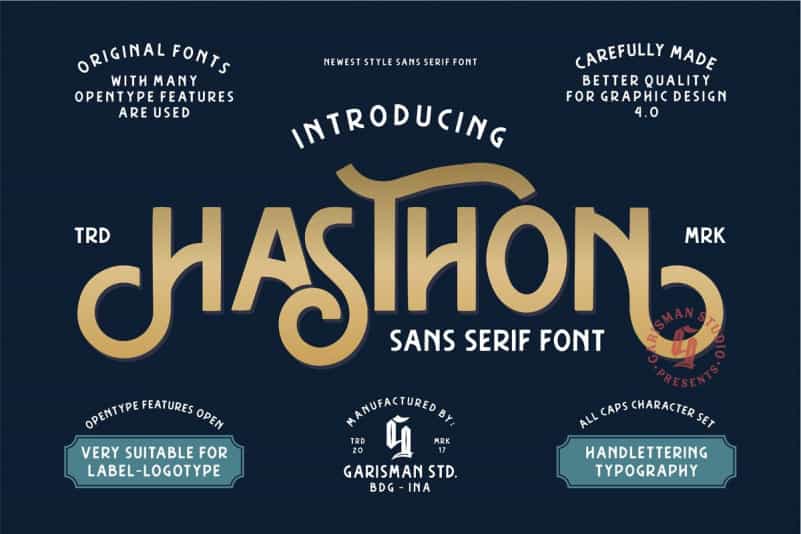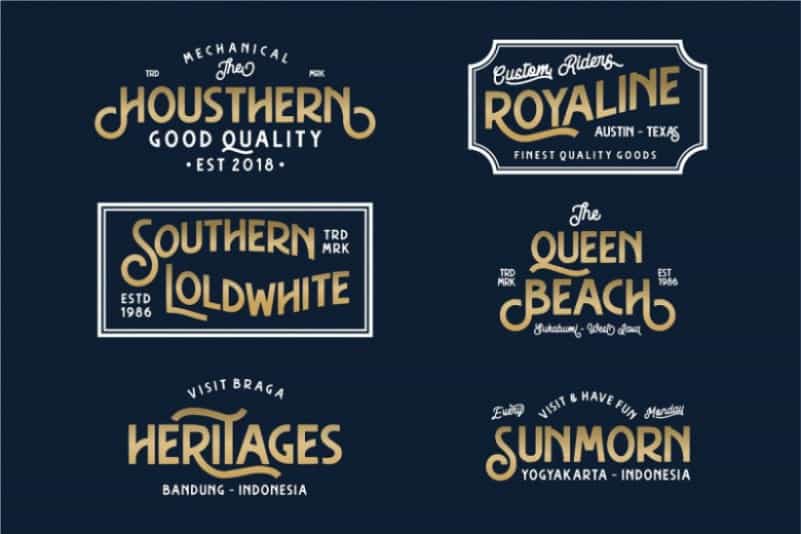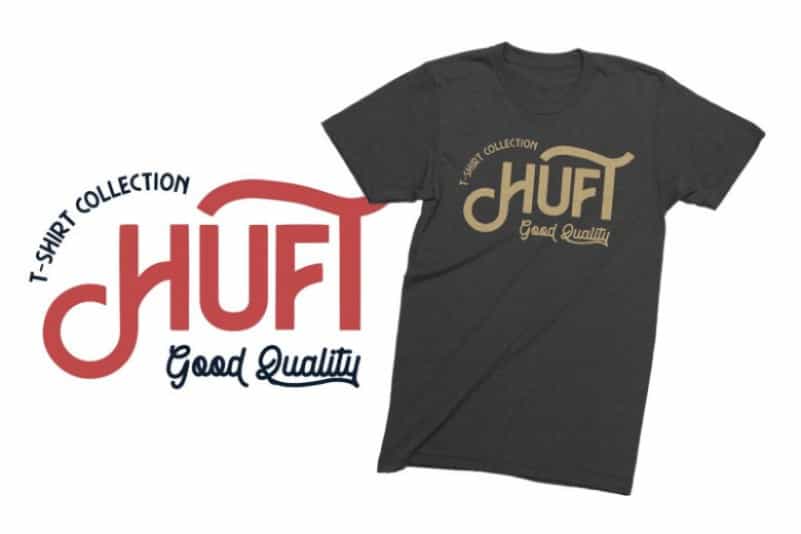
Introducing Hasthon Display Font. It is made and distributed by Garisman Std. Hasthon Vintage Font – this font creates a vintage, classic, old and handmade look. PUA Encoded and I think this font is the best for people who are seeking a vintage design or logo-type. Appropriate for all the graphic designs which are like branding materials, t-shirt, print, business cards, logo , poster etc. etc.